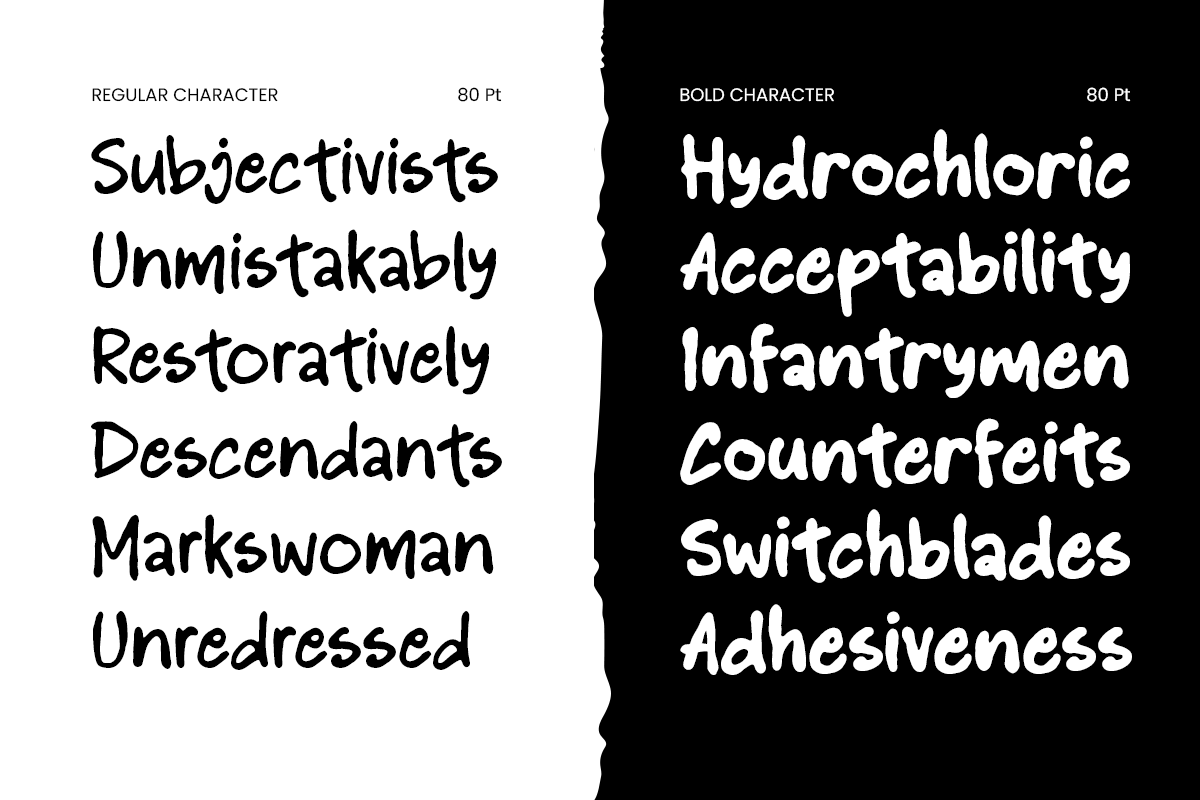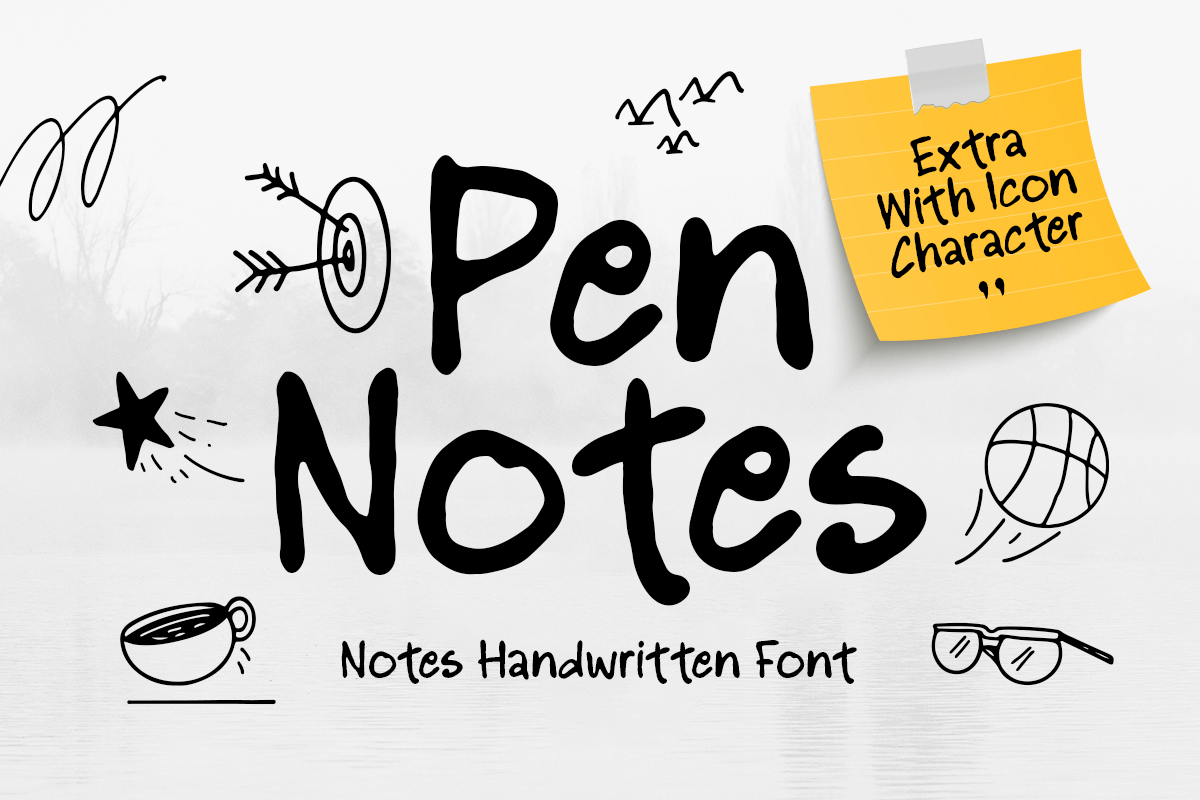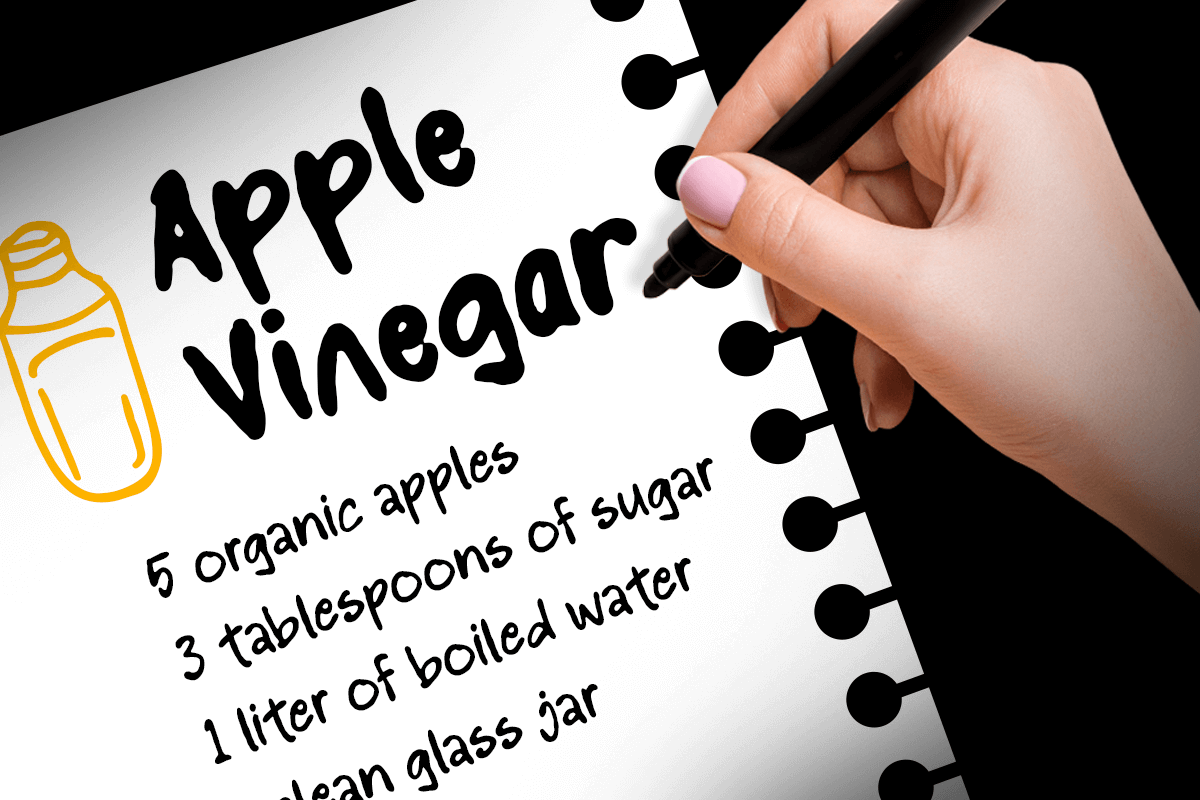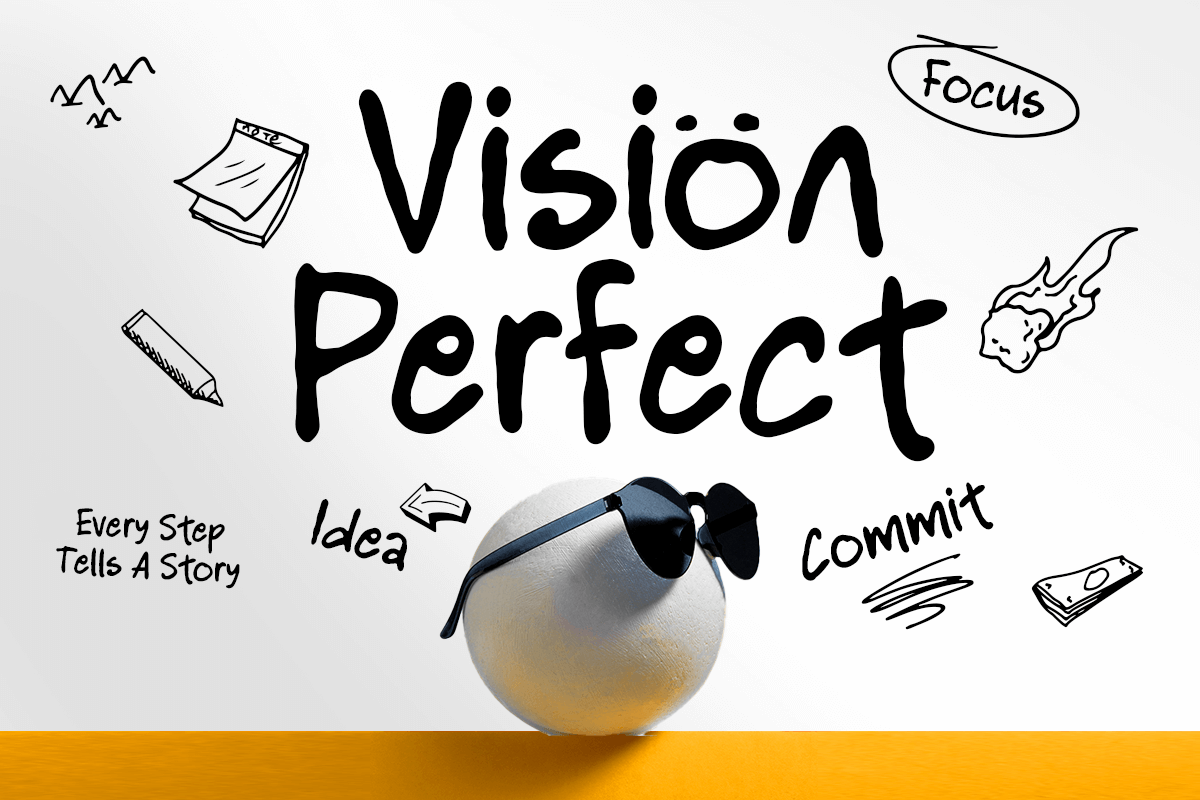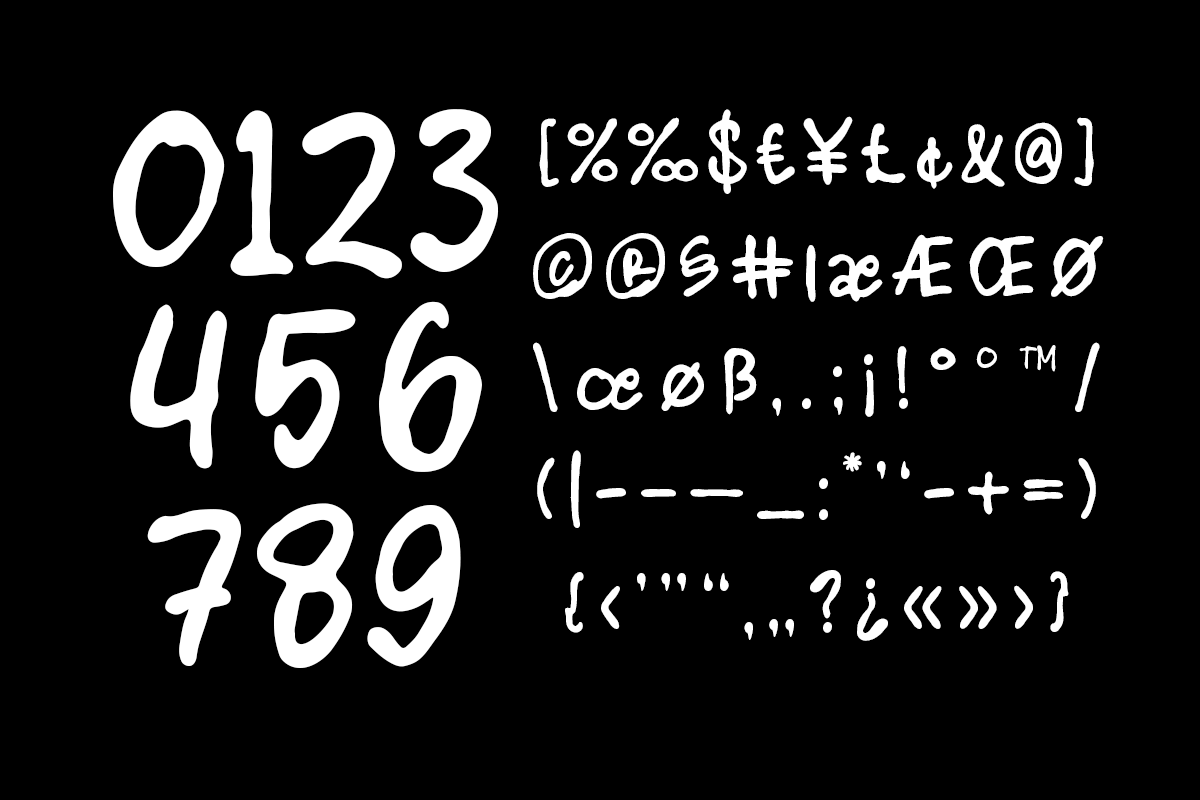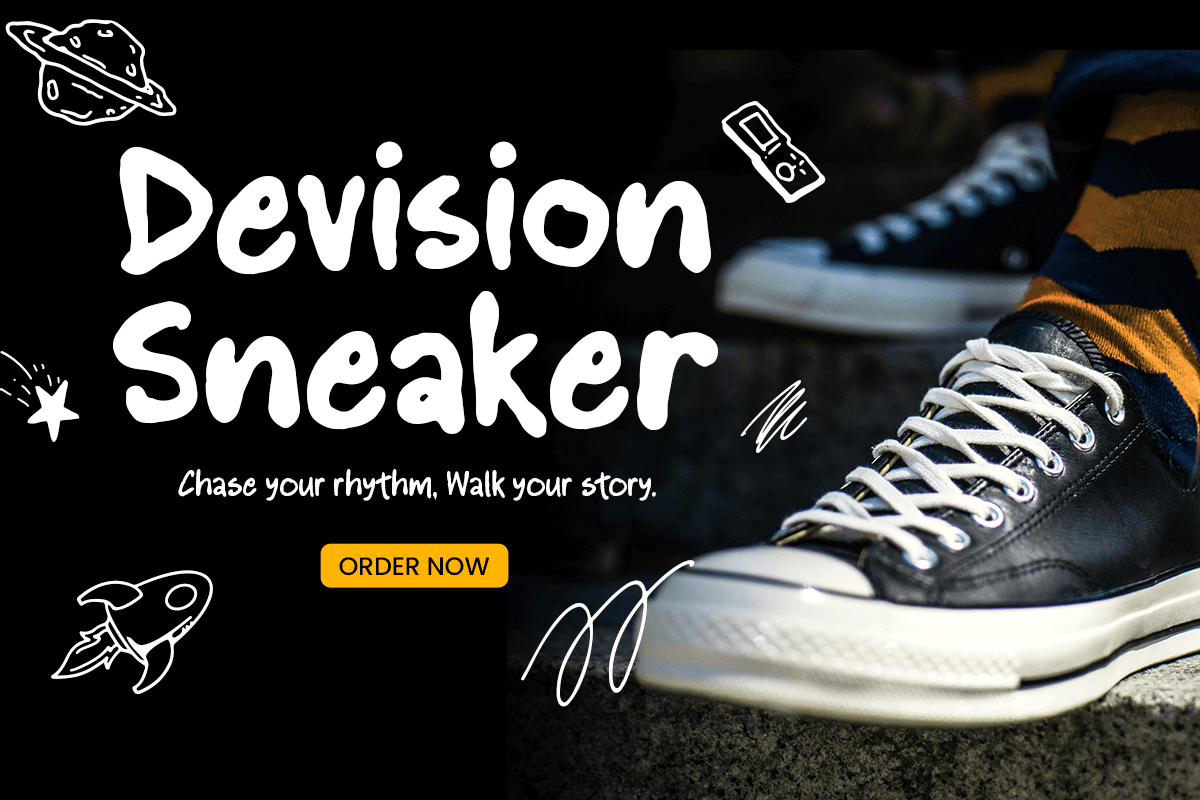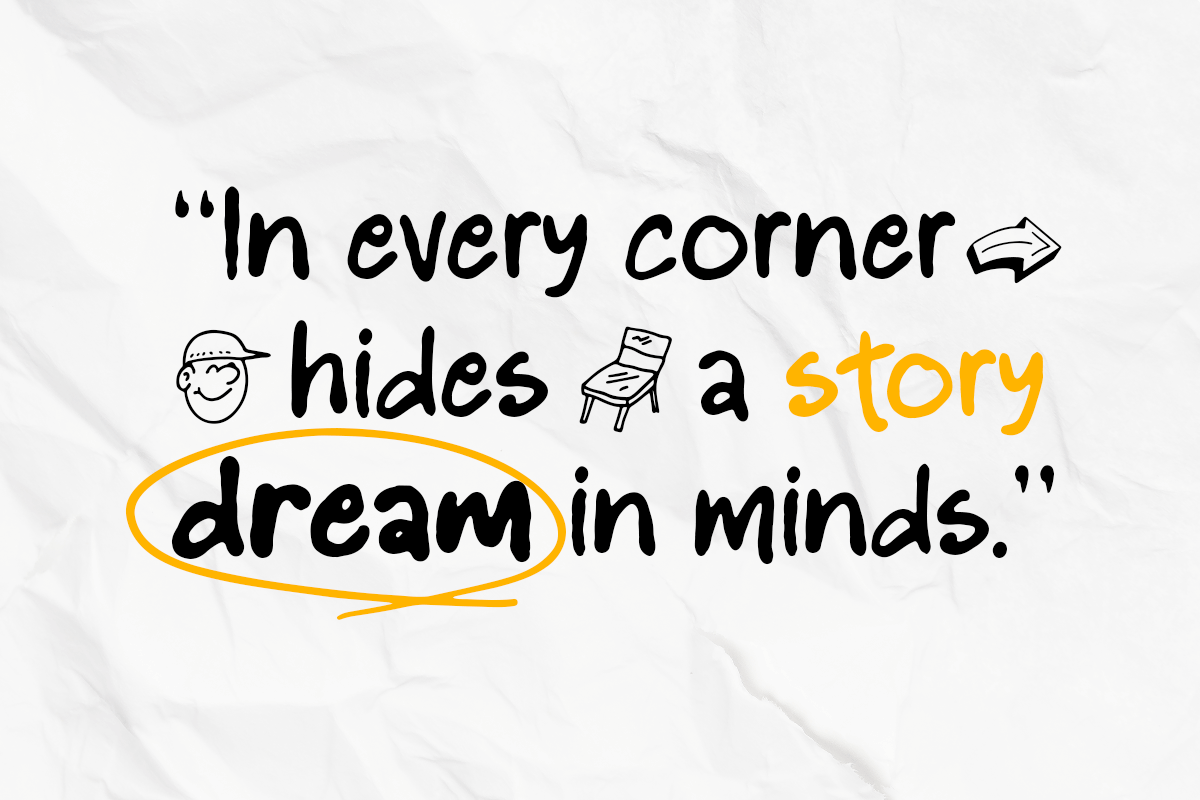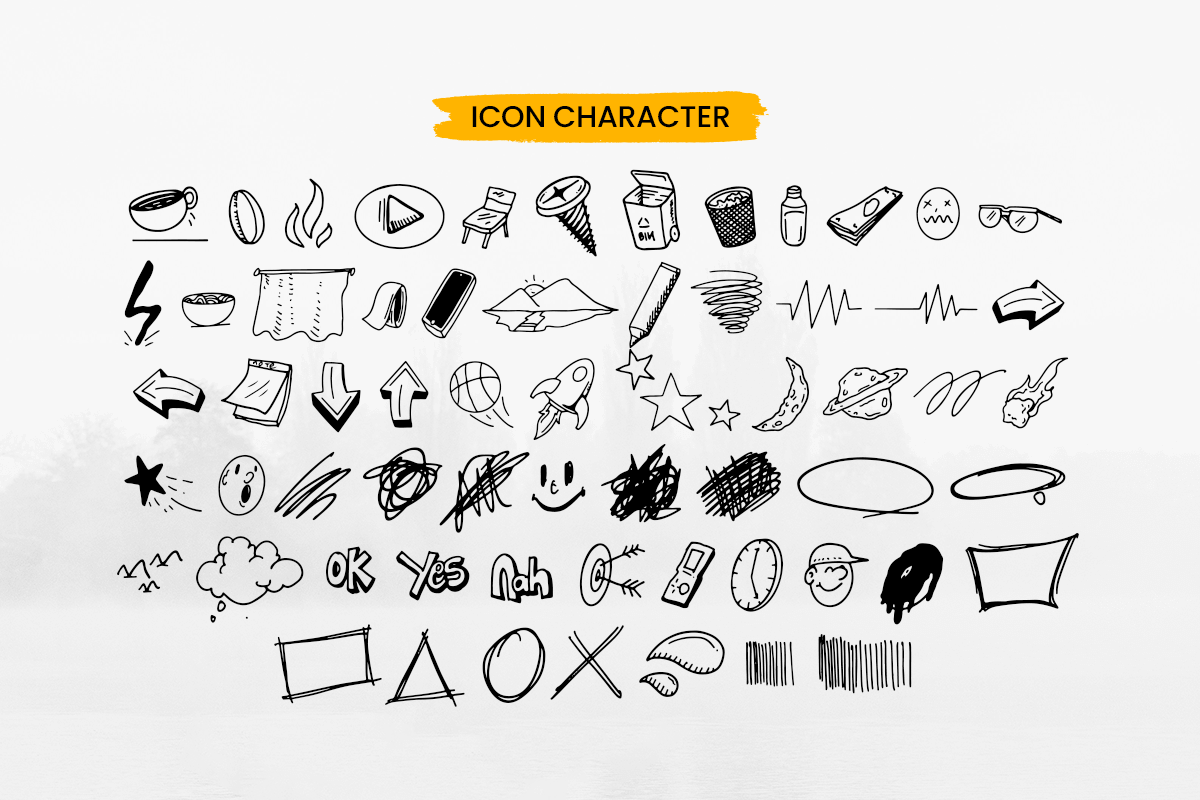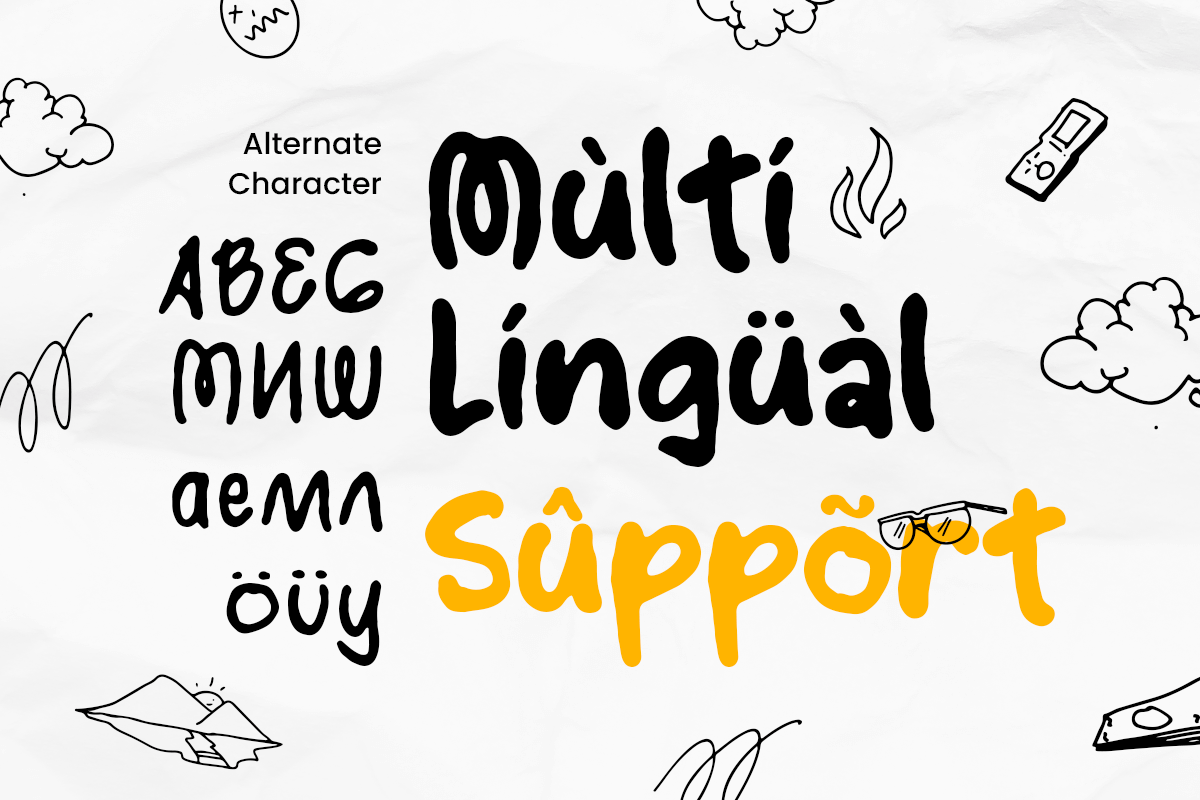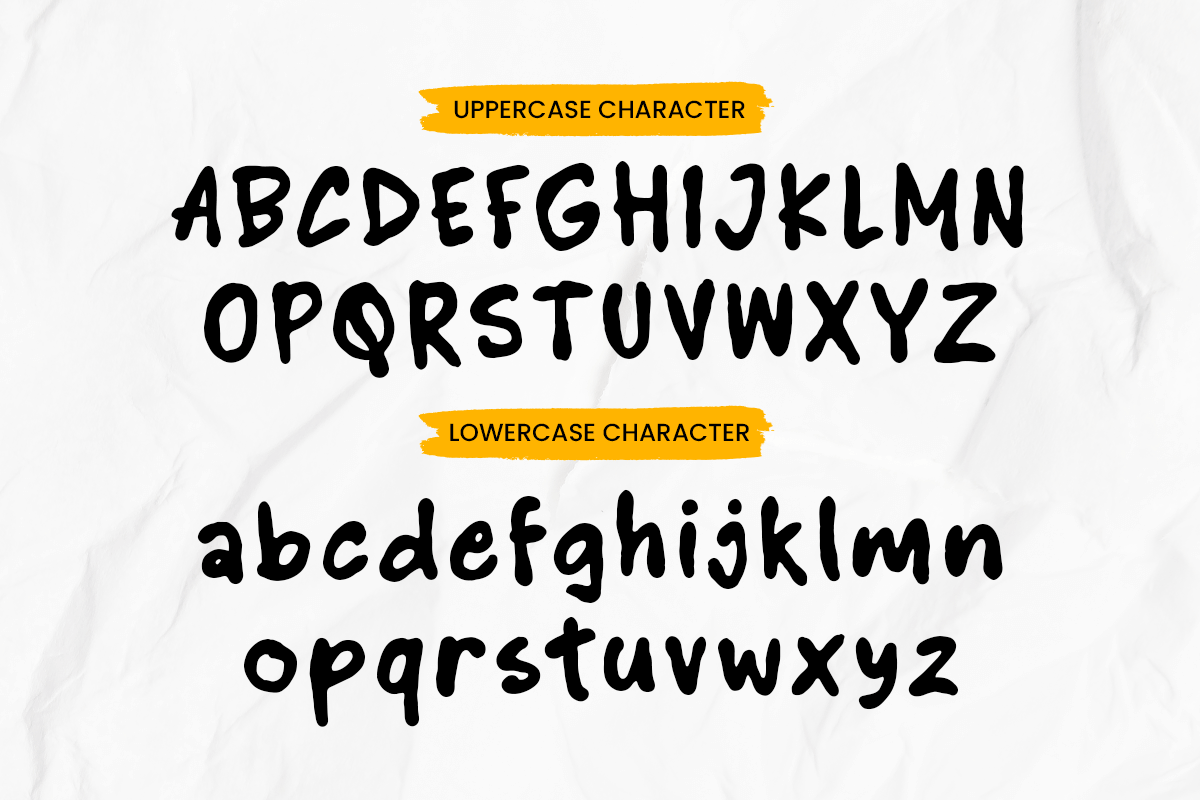
Pen Notes - Notes Handwritten Font
PEN NOTES is a notes handwritten font designed to bring a natural, personal, and creative touch to your designs. Inspired by everyday handwriting and handwritten notes, this typeface features an authentic pen-written style that feels warm, casual, and expressive.
Perfect for creating a personal connection, PEN NOTES works beautifully for journals, planners, stationery, social media graphics, logos, quotes, packaging, and creative branding projects. Its relaxed handwritten character adds a human touch that makes every design feel more approachable and unique.
Whether used for personal projects, lifestyle brands, educational materials, or modern creative content, PEN NOTES delivers a charming handwritten aesthetic across both print and digital media.
PEN NOTES – Notes Handwritten Font Features
Natural handwritten style inspired by pen notes
Perfect for journals, planners, stationery, and creative branding
Casual letterforms with authentic handwritten character
Ideal for quotes, logos, social media, packaging, and personal projects
Uppercase, lowercase, numerals, and punctuation included
OpenType features for enhanced lettering flexibility
Multilingual support for Afrikaans, Albanian, Asu, Basque, Bemba, Bena, Breton, Chiga, Cornish, Dutch, English, Estonian, Filipino, Finnish, Friulian, Galician, German, Gusii, Indonesian, Irish, Italian, Kabuverdianu, Kalenjin, Kinyarwanda, Luo, Luxembourgish, Luyia, Machame, Makhuwa-Meetto, Makonde, Malagasy, Manx, Morisyen, North Ndebele, Nyankole, Oromo, Portuguese, Quechua, Romansh, Rombo, Rundi, Rwa, Samburu, Sango, Sangu, Scottish Gaelic, Sena, Shambala, Shona, Soga, Somali, Spanish, Swahili, Swedish, Swiss, and more.